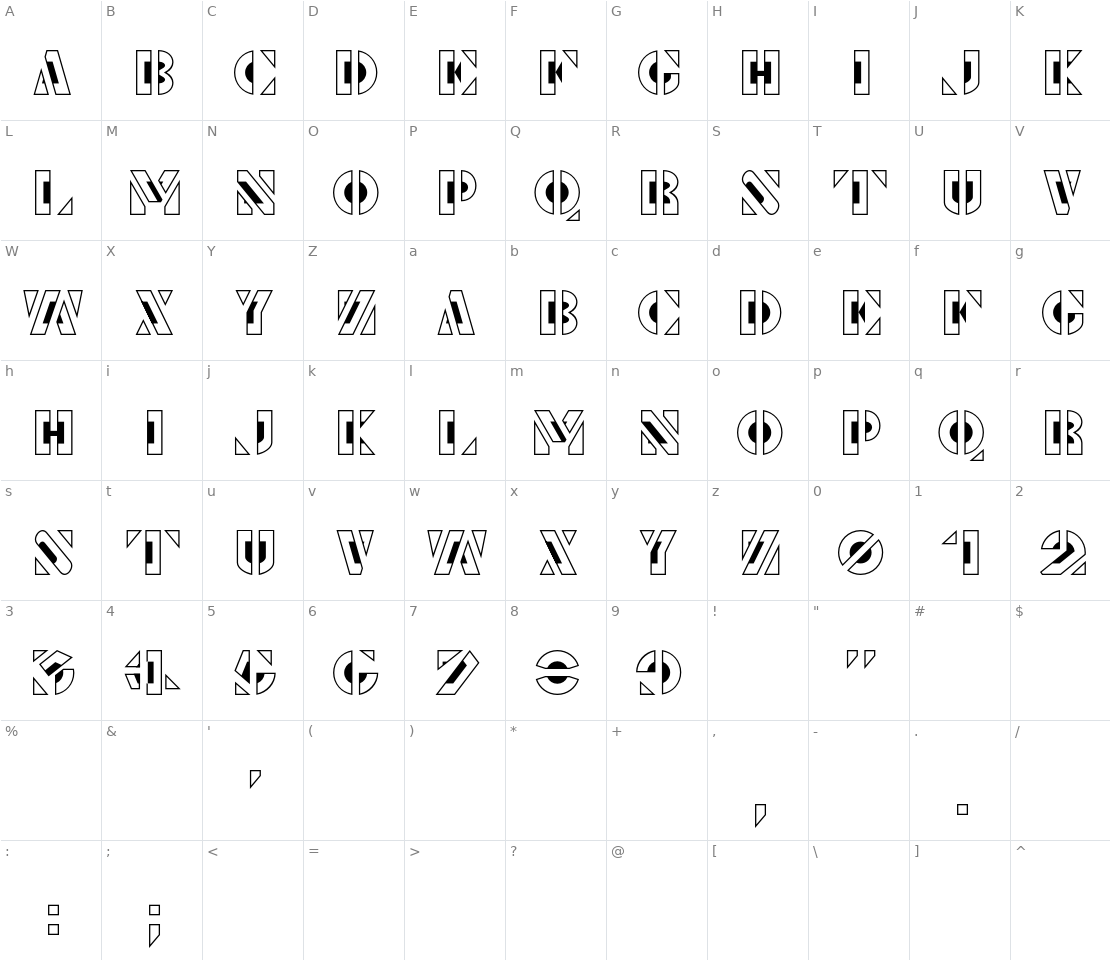
Le Pochoir
Le Pochoir is a bold, uppercase stencil face by Toto with an Art Deco sensibility running through its geometric letterforms. The cut-out gaps and clean, angular shapes give it the look of vintage French poster lettering, equal parts decorative and structured. Built for headlines, signage, and display work where you want that hand-stenciled graphic quality with a touch of period elegance.